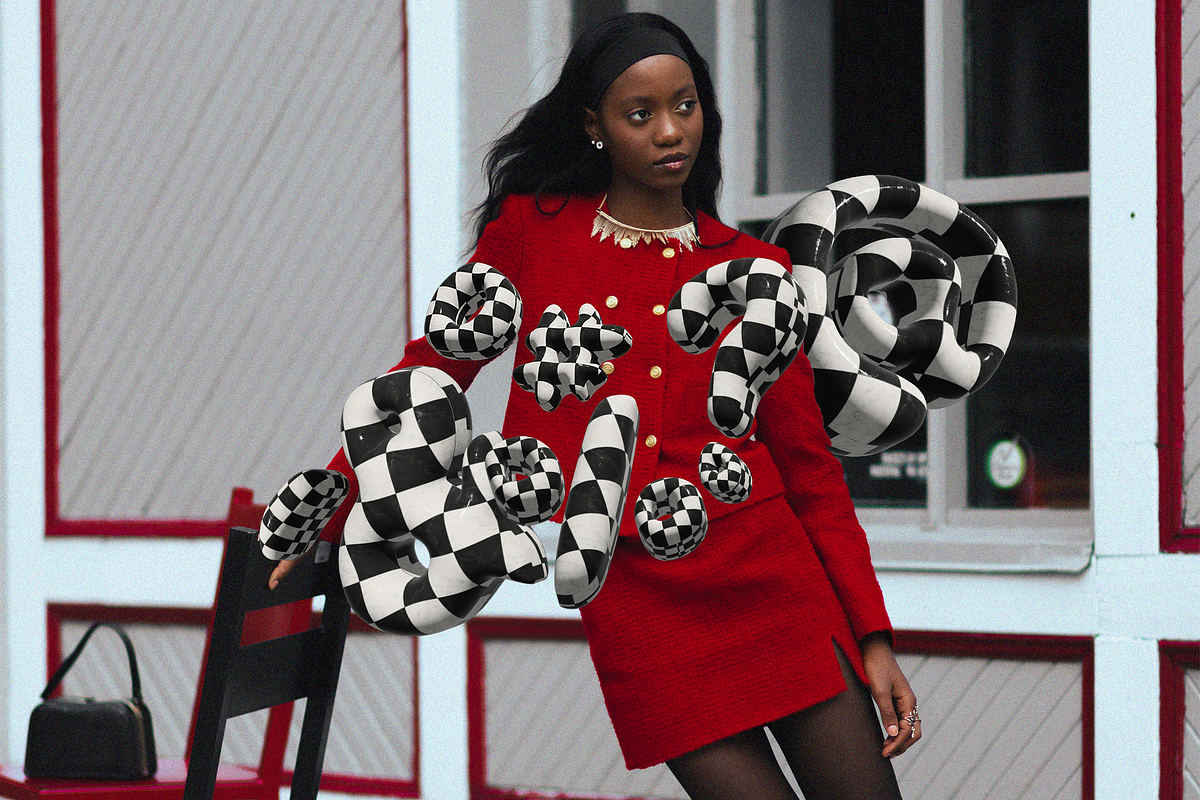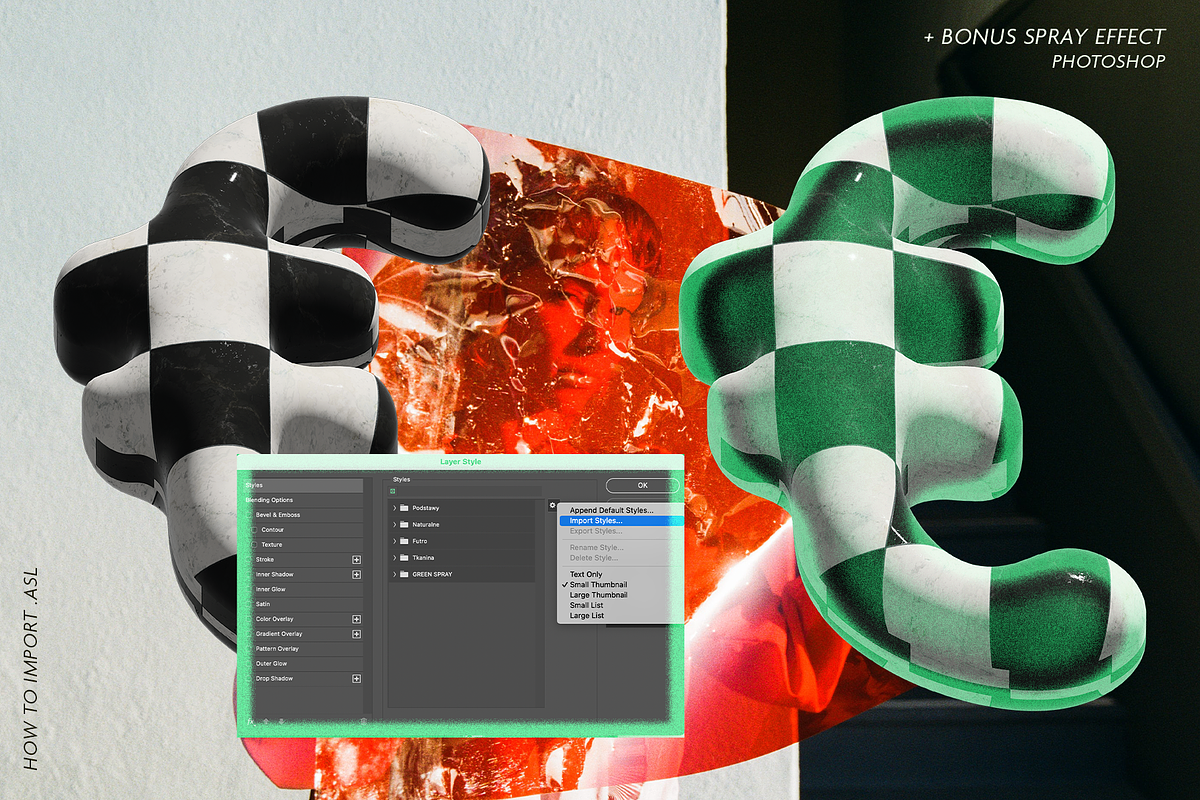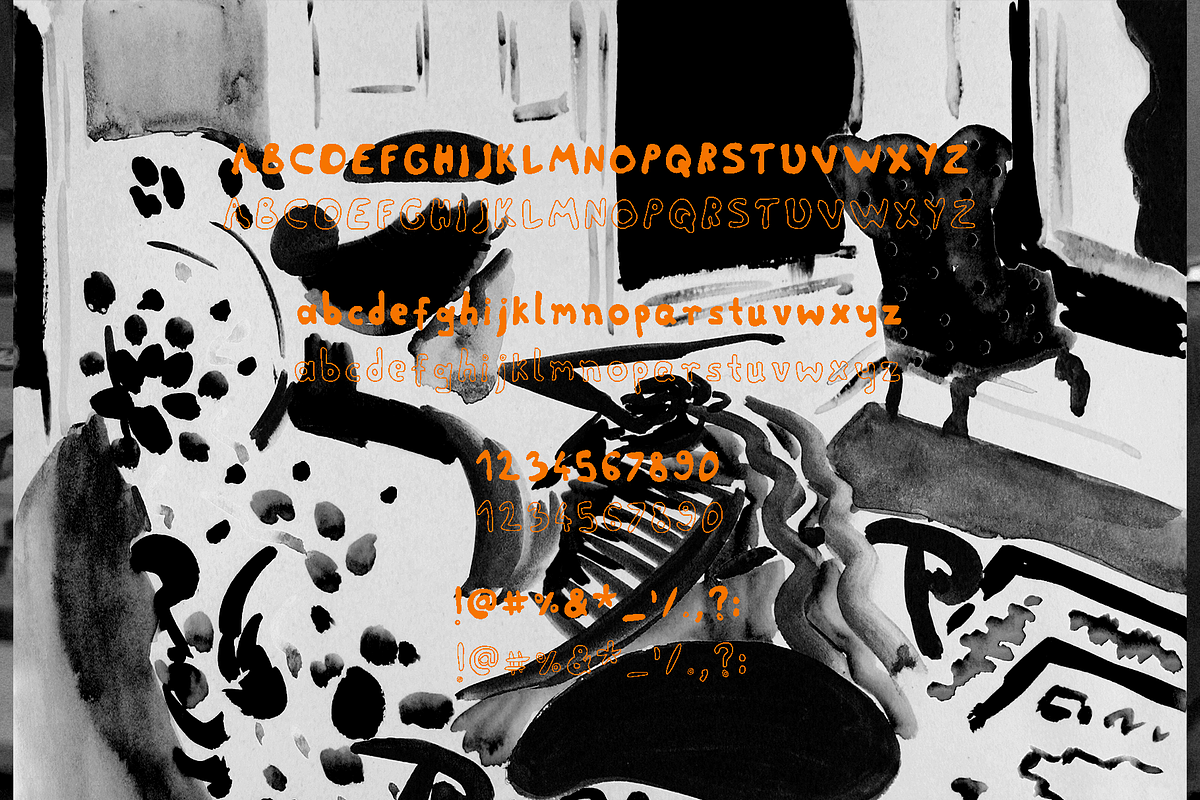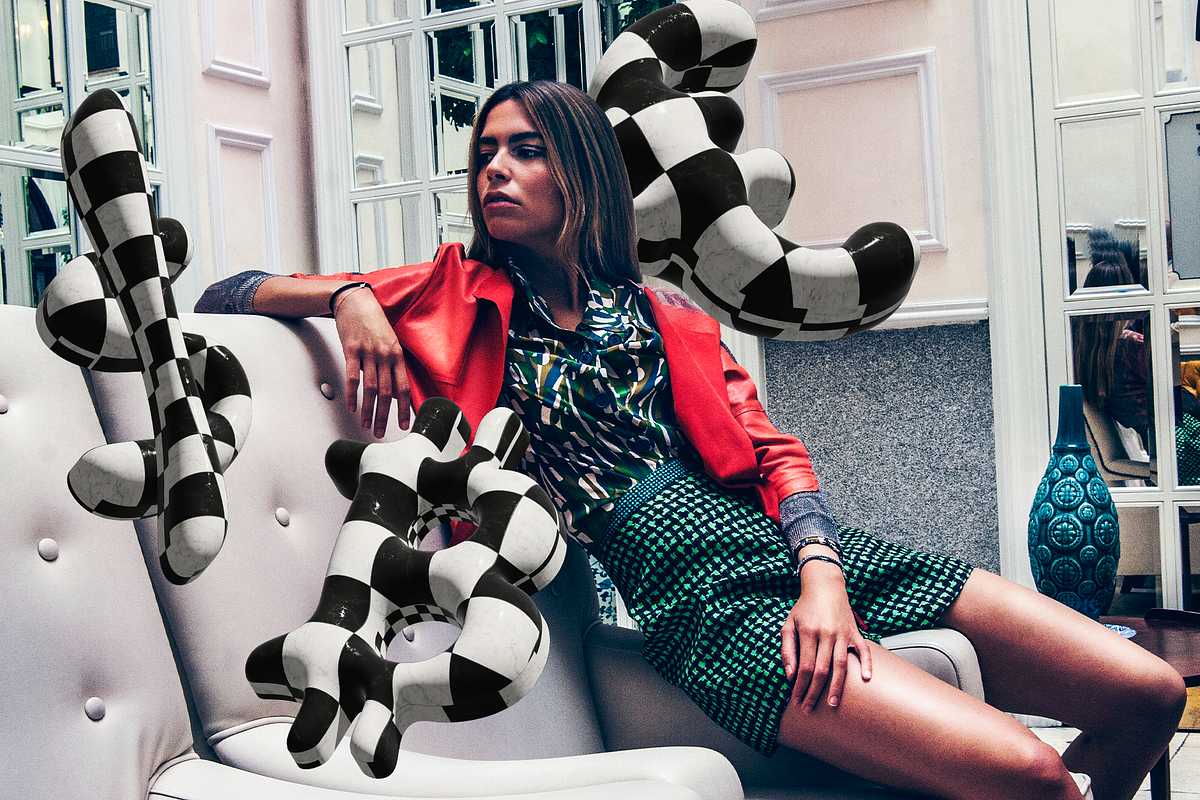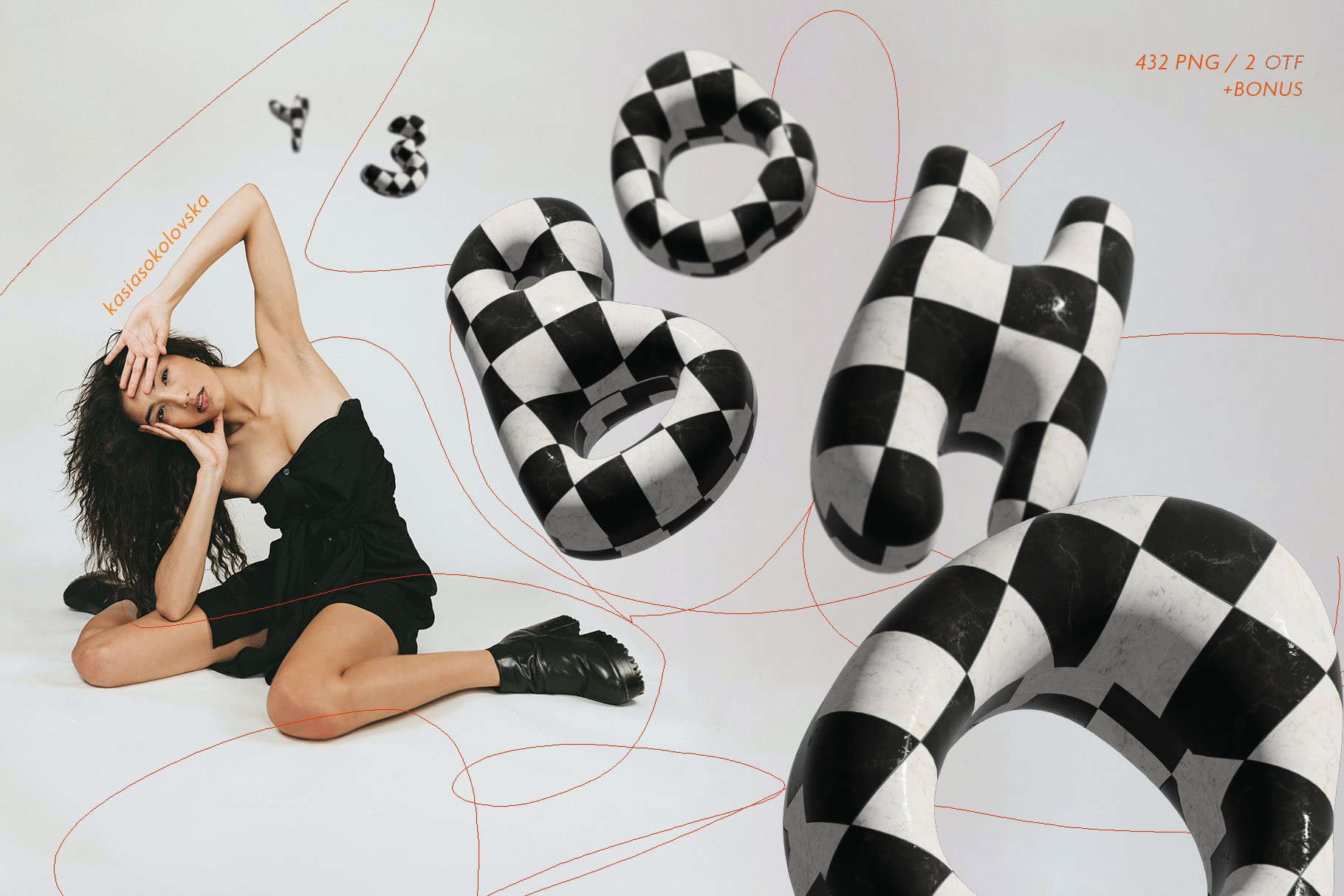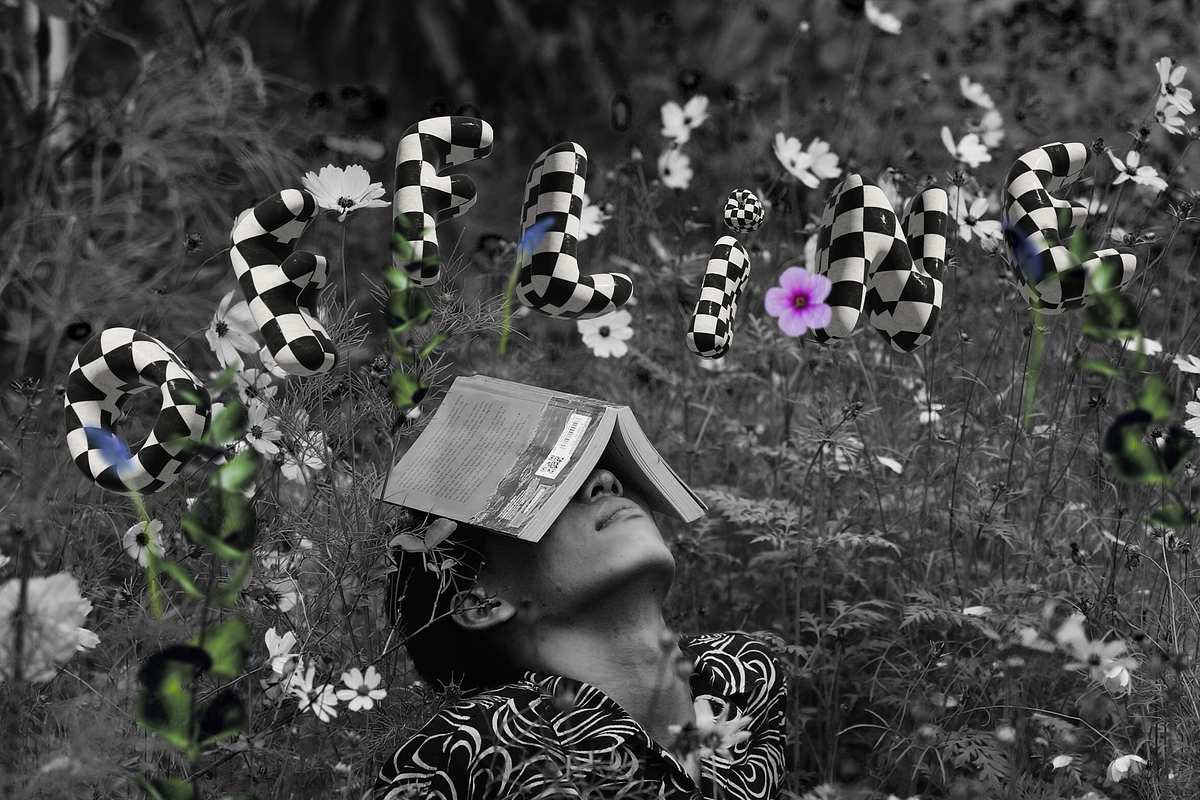
Bubble font, 3D Checker letters PNG
432 PNG of 3D CHECKER (without spray effect): ABCDEFGHIJKLMNOPQRSTUVWXYZ, 1234567890, .?!/'%&#@_ , Symbols of Bitocoin, USD, EUR. Each of letter/numer/symbol is given in 9 perspectives. Slide 2.
2 OTF OH BOY basic fonts black and outline, without 3d effect: Caps, Lowers, Numbers, Punctation !@#%&*_’/.,?: